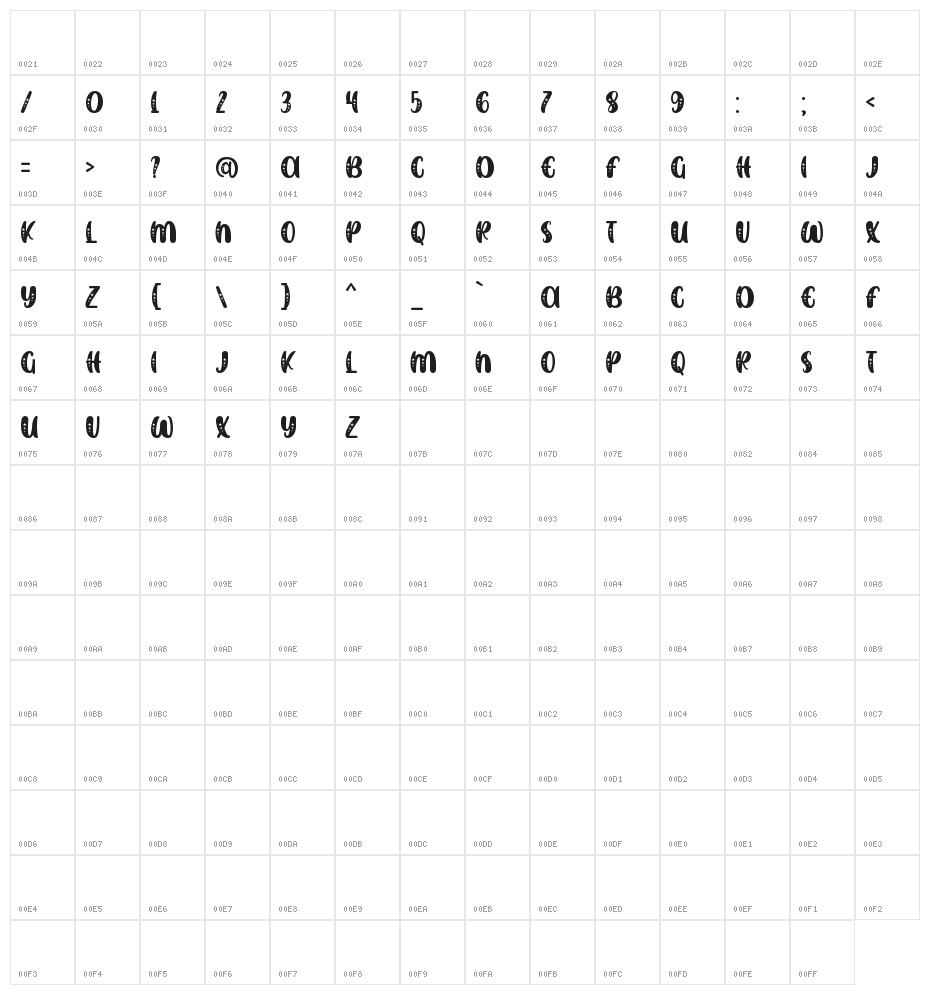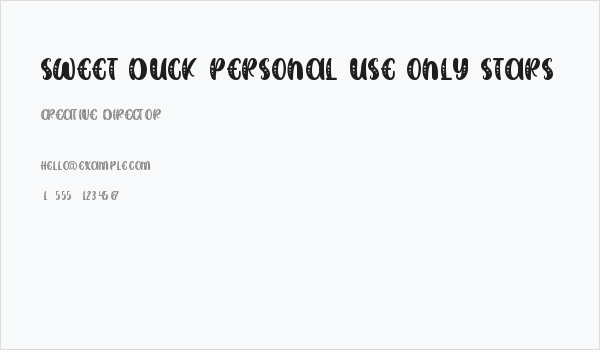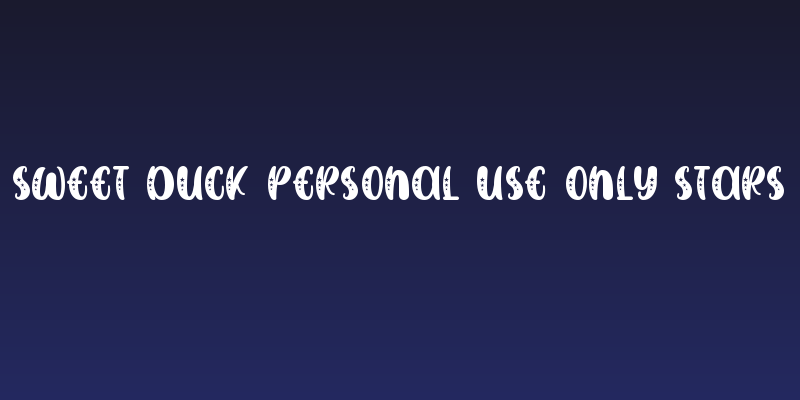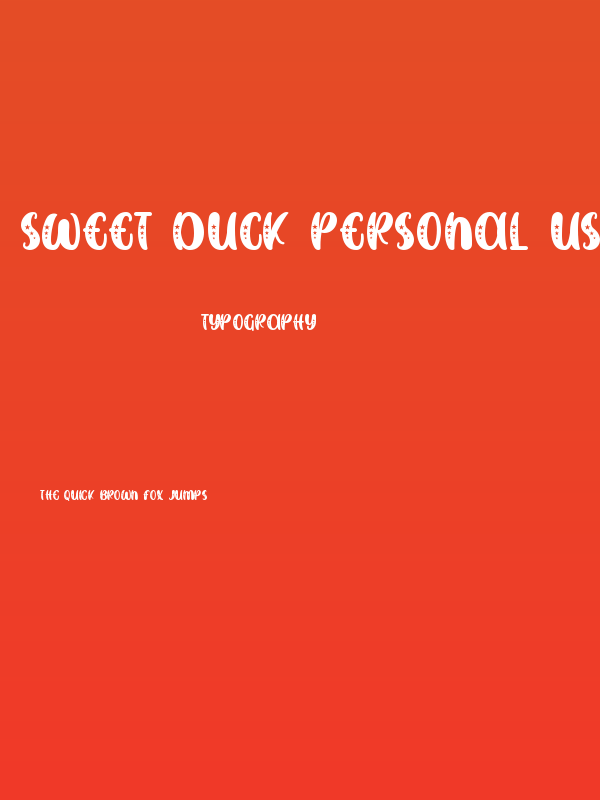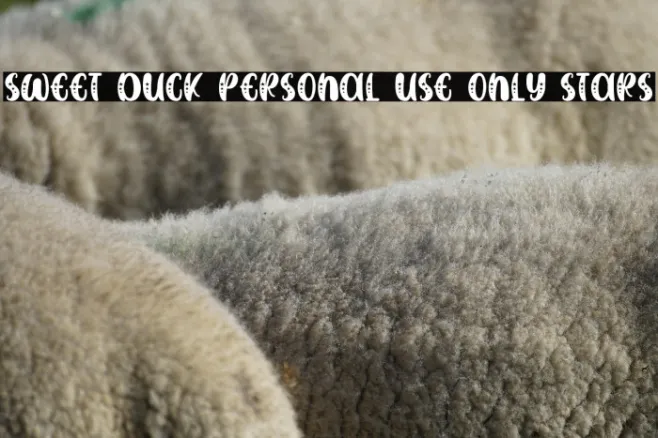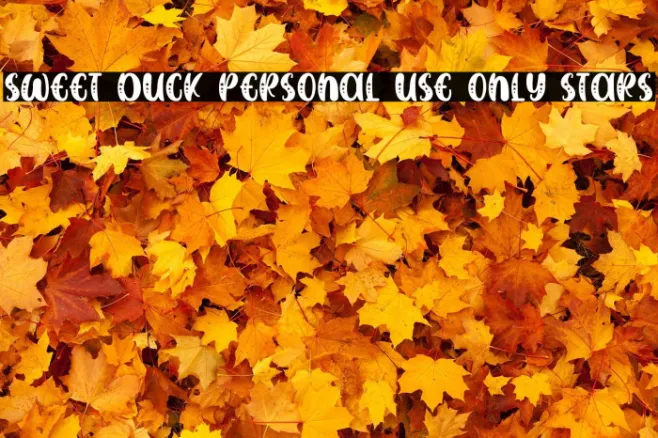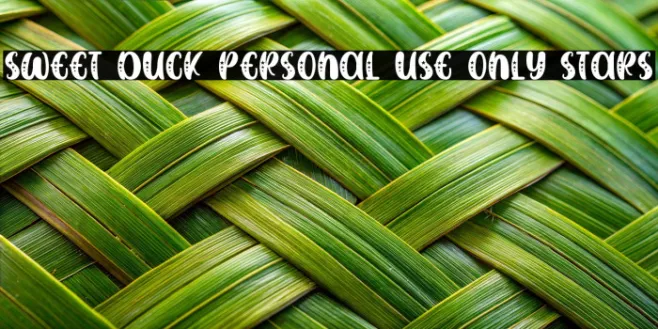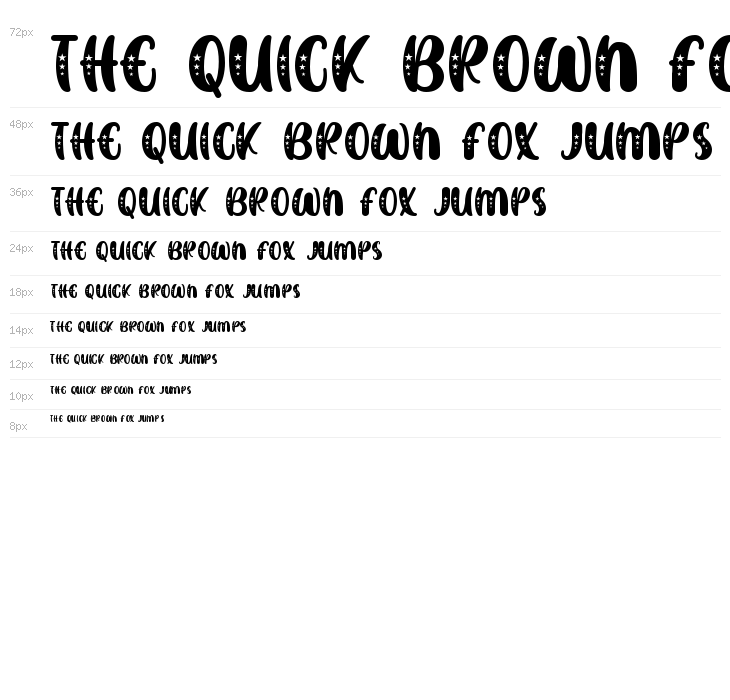
SWEET DUCK Personal Use ONly Stars Font
SWEET DUCK Personal Use ONly Stars Description
This playful and decorative font features bold, rounded characters adorned with star motifs, giving it a whimsical and enchanting appearance. The uppercase and lowercase letters maintain a consistent style, with the stars adding a unique touch to each character. The numbers follow the same design, ensuring uniformity across all elements. The font's thick strokes and rounded edges contribute to its friendly and approachable feel, making it ideal for projects that require a fun and engaging aesthetic.